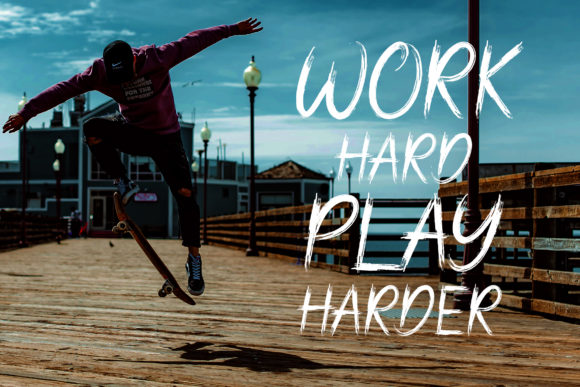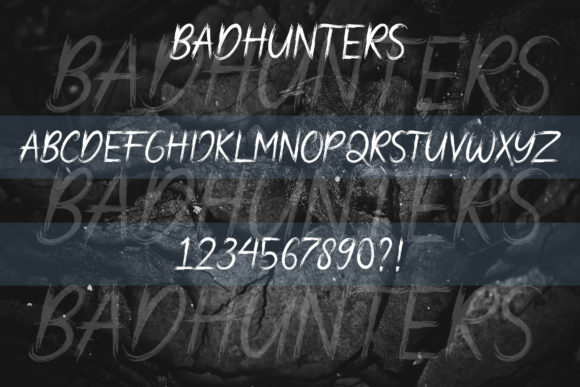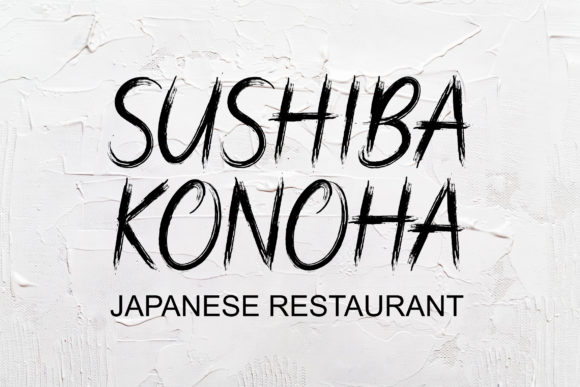
Unleash Your Creativity with Bad Hunters Font: The Ultimate Brush Font for Bold Designs
Are you tired of using the same old fonts for your designs? Do you want to add a touch of energy and edginess to your projects? Look no further than Bad Hunters Font, a supercharged, street-wise brush font that’s bursting with energy. With its quick strokes and sharp details, Bad Hunters is guaranteed to deliver an unapologetically loud and fast-paced message that will leave your audience captivated.
What Makes Bad Hunters Font So Special?
Bad Hunters Font is not just another font – it’s an experience. Its unique blend of street-wise attitude and brush font style makes it perfect for designers and crafters who want to add a touch of rebelliousness to their projects. Whether you’re working on a bold advertising campaign, a edgy fashion brand, or a dynamic packaging design, Bad Hunters Font is the perfect choice.
Key Features of Bad Hunters Font
- Supercharged Energy: Bad Hunters Font is designed to pack a punch. Its bold, quick strokes and sharp details make it perfect for creating eye-catching headlines and titles.
- Street-Wise Attitude: This font is not afraid to push boundaries. Its edgy, urban feel makes it perfect for designers who want to add a touch of attitude to their projects.
- Brush Font Style: Bad Hunters Font features a unique brush font style that’s perfect for creating dynamic, hand-painted designs.
Bad Hunters Font is perfect for designers and crafters who want to take their projects to the next level. Whether you’re working on a:
- Logo Design: Create a bold, eye-catching logo that makes a statement.
- Advertising Campaign: Grab your audience’s attention with bold, dynamic headlines.
- Fashion Brand: Add a touch of edginess to your fashion brand with bold, stylish typography.
- Packaging Design: Create eye-catching packaging that stands out on store shelves.
Tips for Using Bad Hunters Font
Here are some tips for getting the most out of Bad Hunters Font:
- Use it Boldly: Bad Hunters Font is designed to make a statement. Use it boldly to create eye-catching headlines and titles.
- Experiment with Colors: This font looks great in bold, bright colors. Experiment with different colors to find the perfect look for your project.
- Pair it with Other Fonts: Bad Hunters Font pairs well with other fonts. Try pairing it with a clean, sans-serif font for a bold and modern look.
Bad Hunters Font is a game-changer for designers and crafters who want to add a touch of energy and edginess to their projects. With its supercharged energy, street-wise attitude, and brush font style, this font is guaranteed to deliver an unapologetically loud and fast-paced message that will leave your audience captivated. So why wait? Download Bad Hunters Font today and start creating bold, dynamic designs that make a statement!